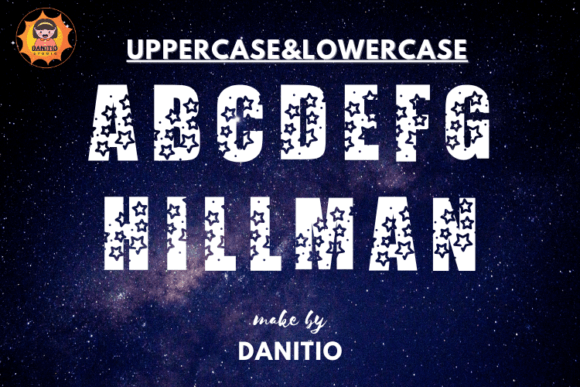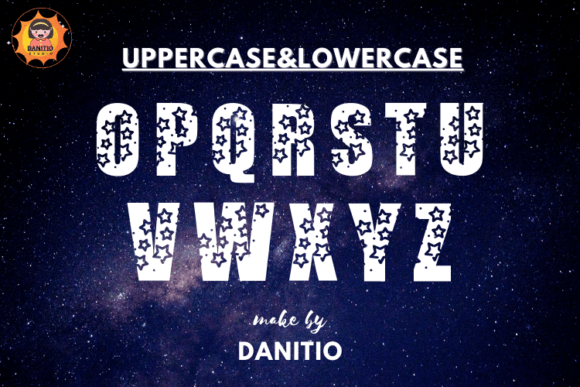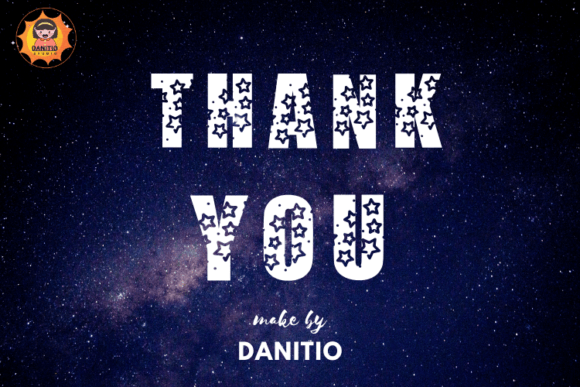
Night Star Font
Night Star is a decorative font that combines letters decorated with cute flying stars to make it look unusual and cool at the same time. This style emphasizes cuteness in every design. Great for birthday cards, t-shirts, mugs, tote bags, and other items.